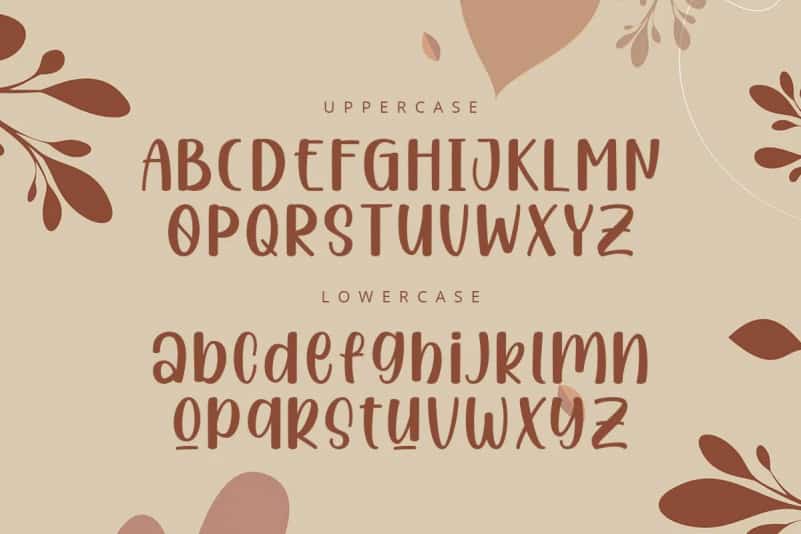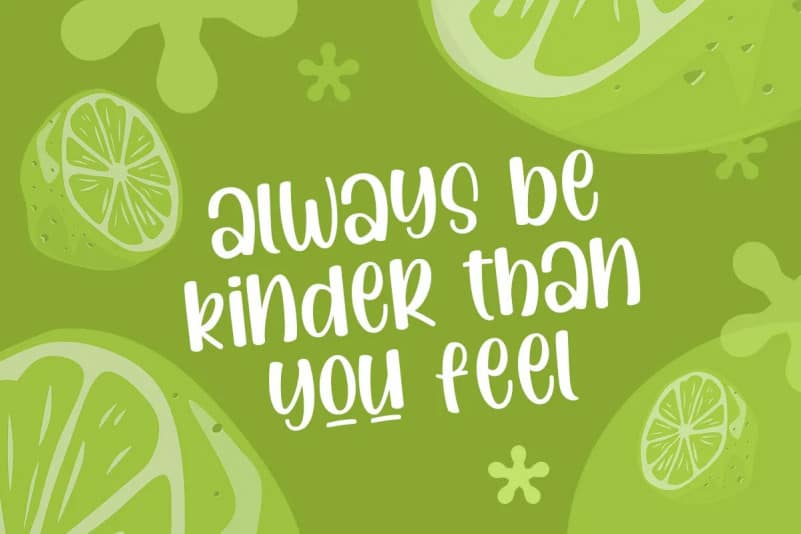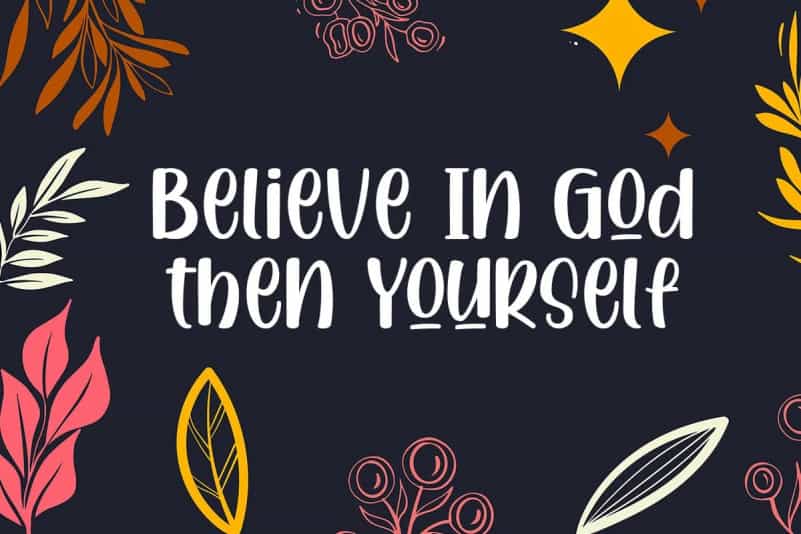
Introducing Confused Handwritten Font – is bold and elegant lettered display font. Its friendly feel makes this font incredibly versatile, fitting a wide range of contexts. Add it to your creative ideas and notice how it makes them stand out! Great for your next creative project such as logos, printed quotes, invitations, cards, product packaging, headers, Logotype, Letterhead, Poster, Apparel Design, Label, and etc.